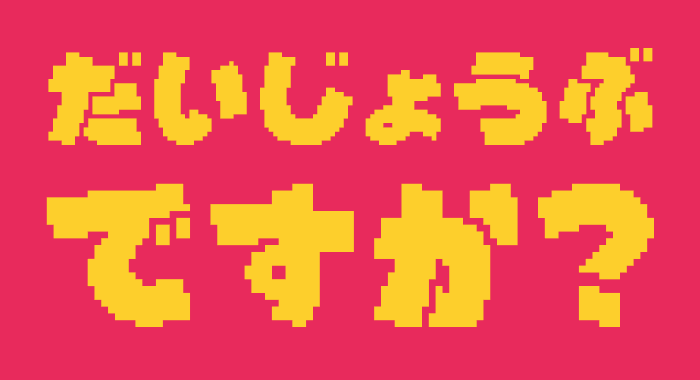
Love the g!
Looks like something out of a nintendo game. awesome.
Very cool
Круто! Game Pony Island? Does it resemble a font from there to me, was it inspired by it or something else? Are you planning to make Cyrillic?
@Dmitriy Sychiov (Sychoff) I wasn't really inspired by anything in particular, just felt like making a cool pixel font. But looking at the Pony Island logo font, they are really similar.
I wasn't really planning nor I am currently planning to make Cyrillic, but I think that'd be fun to work on.